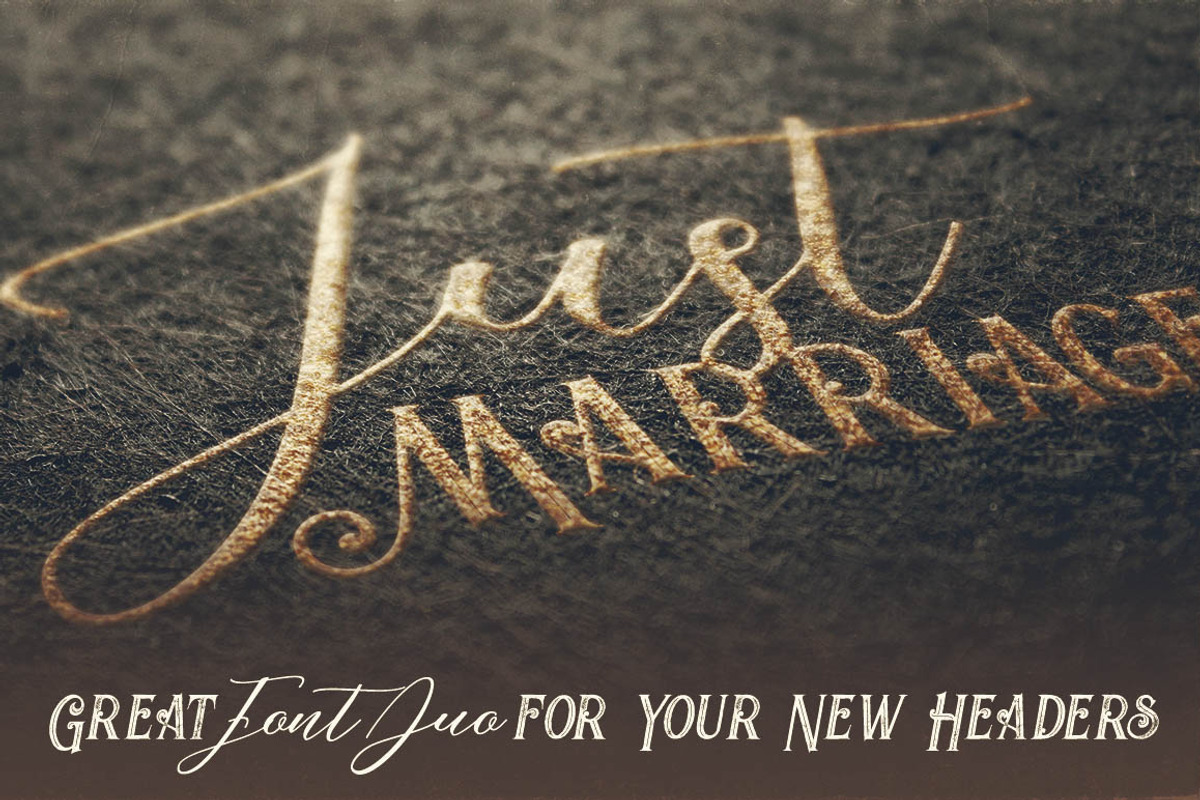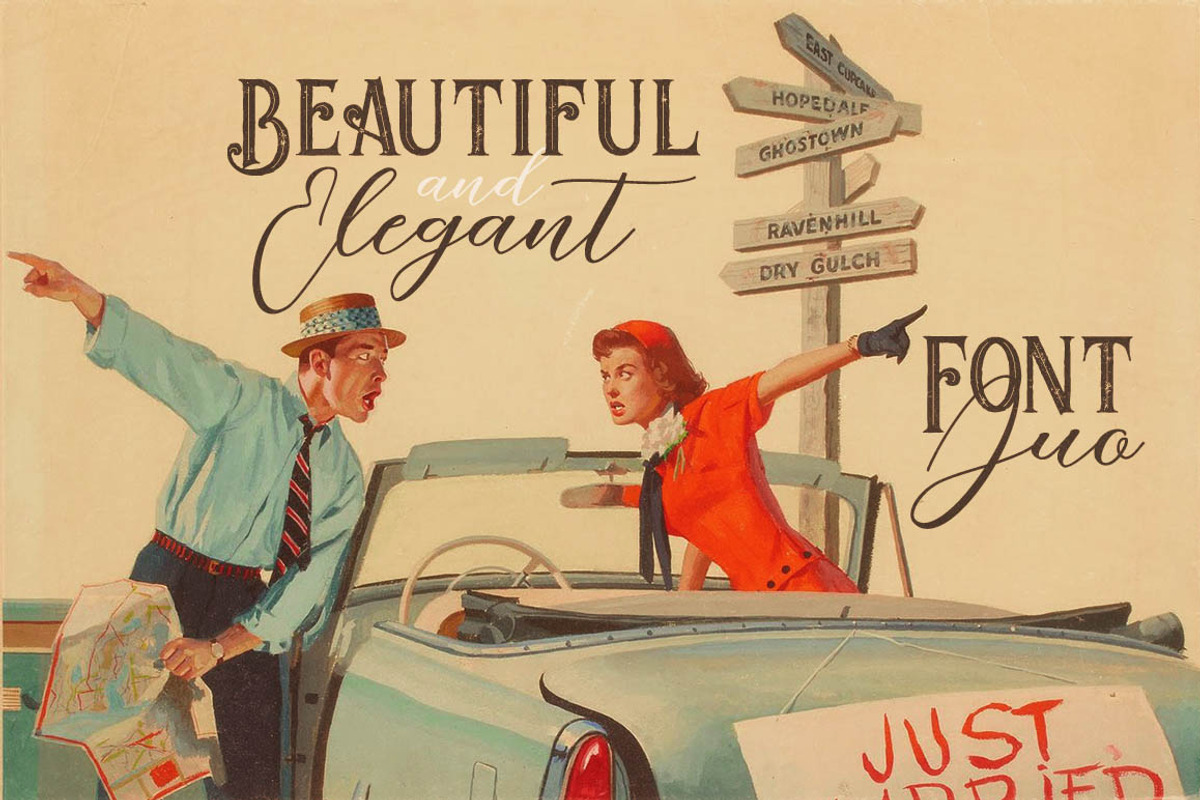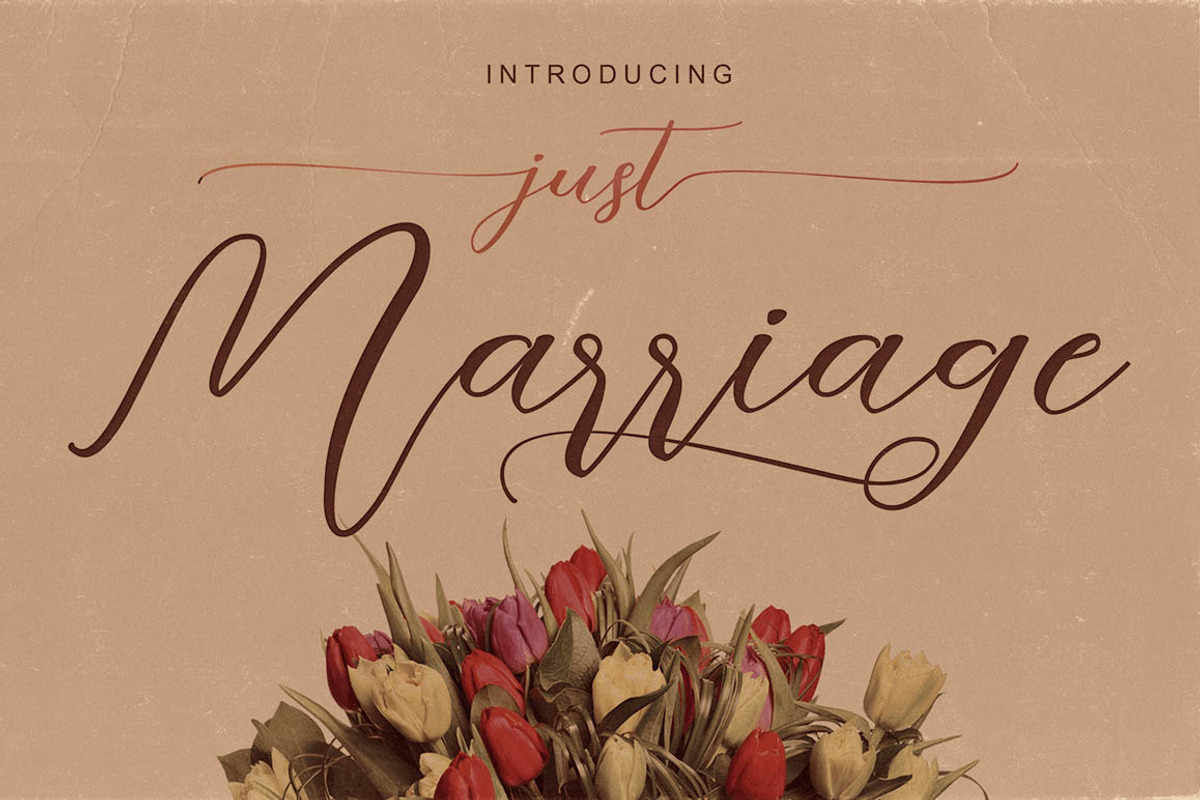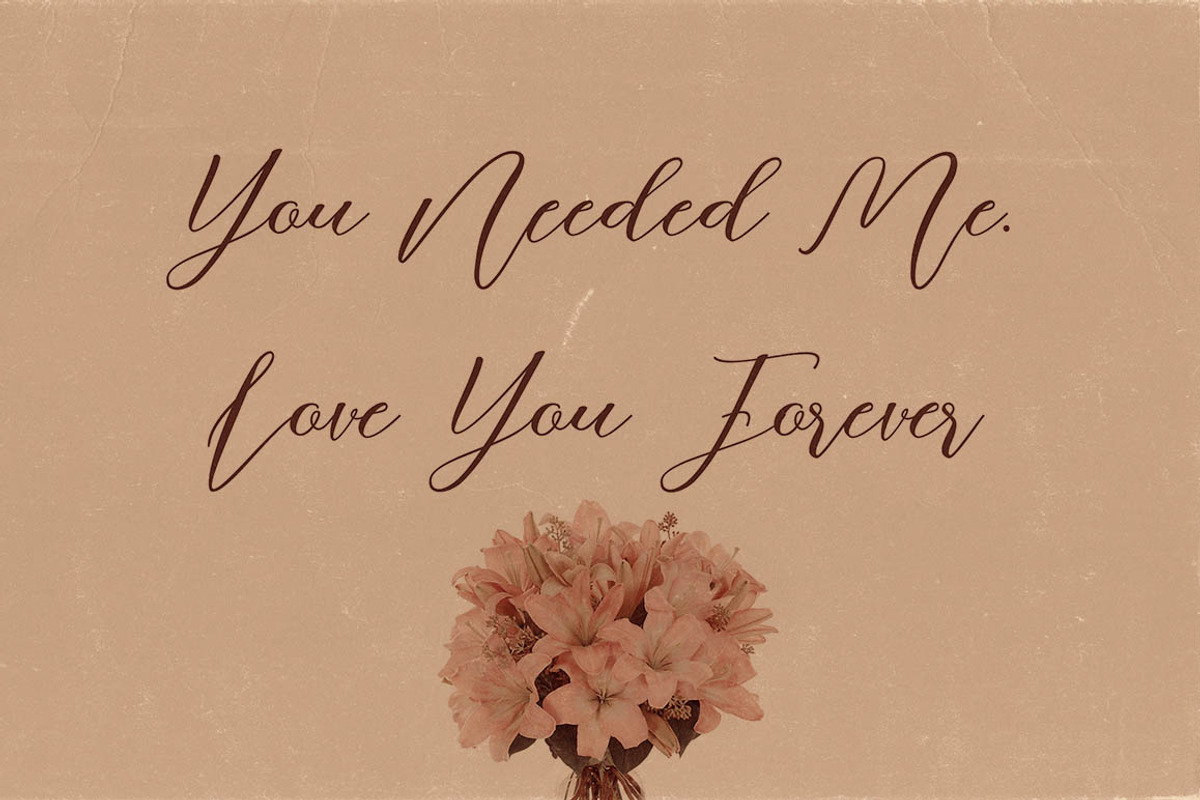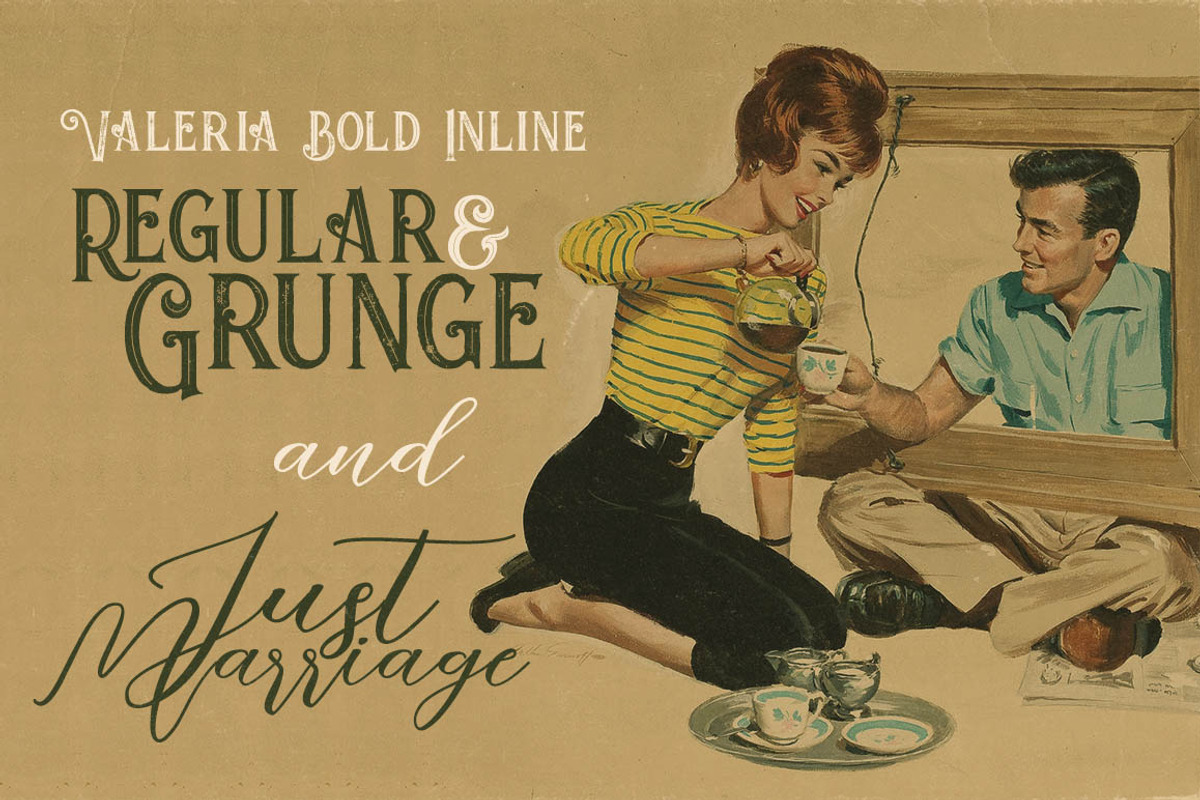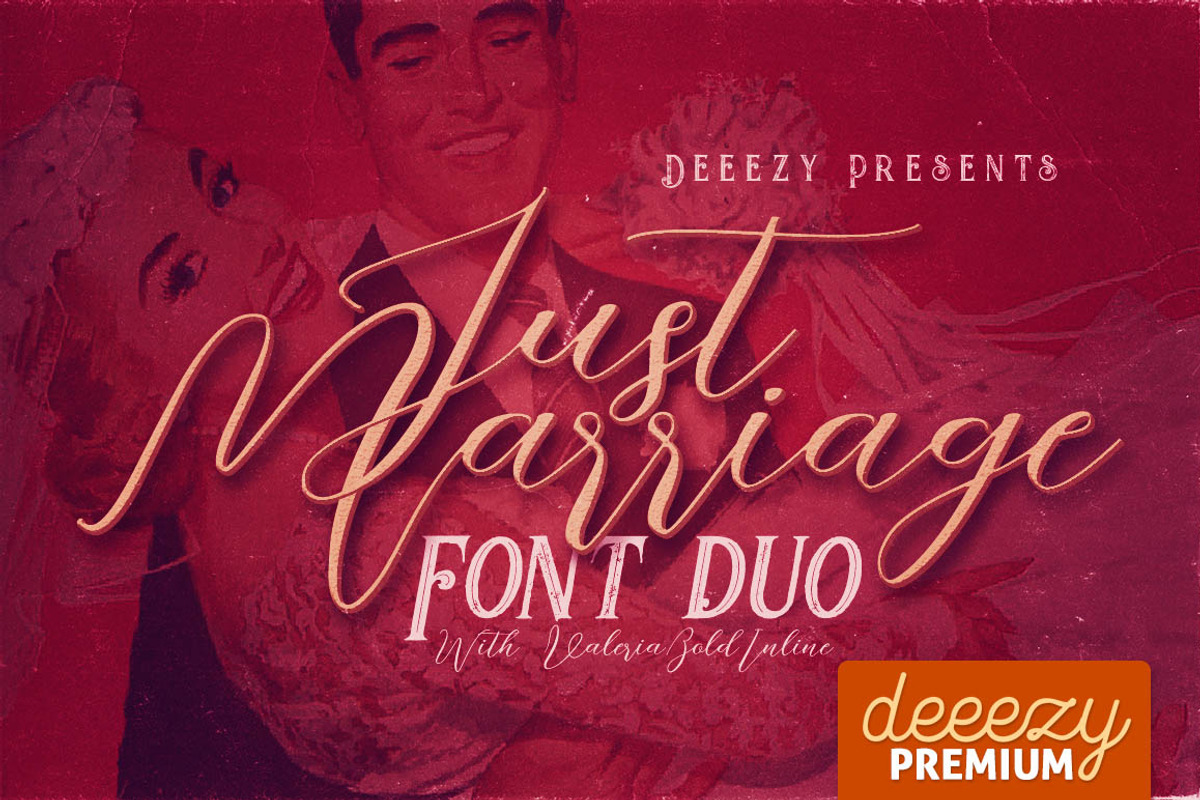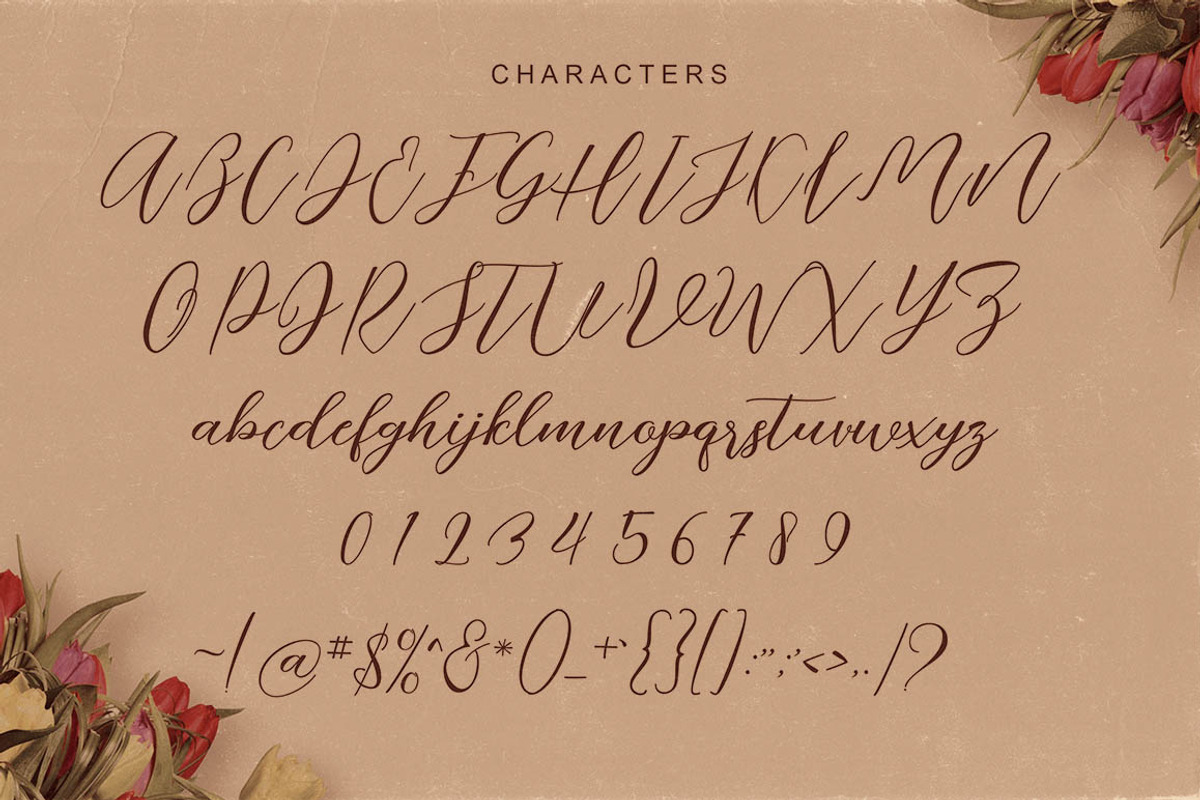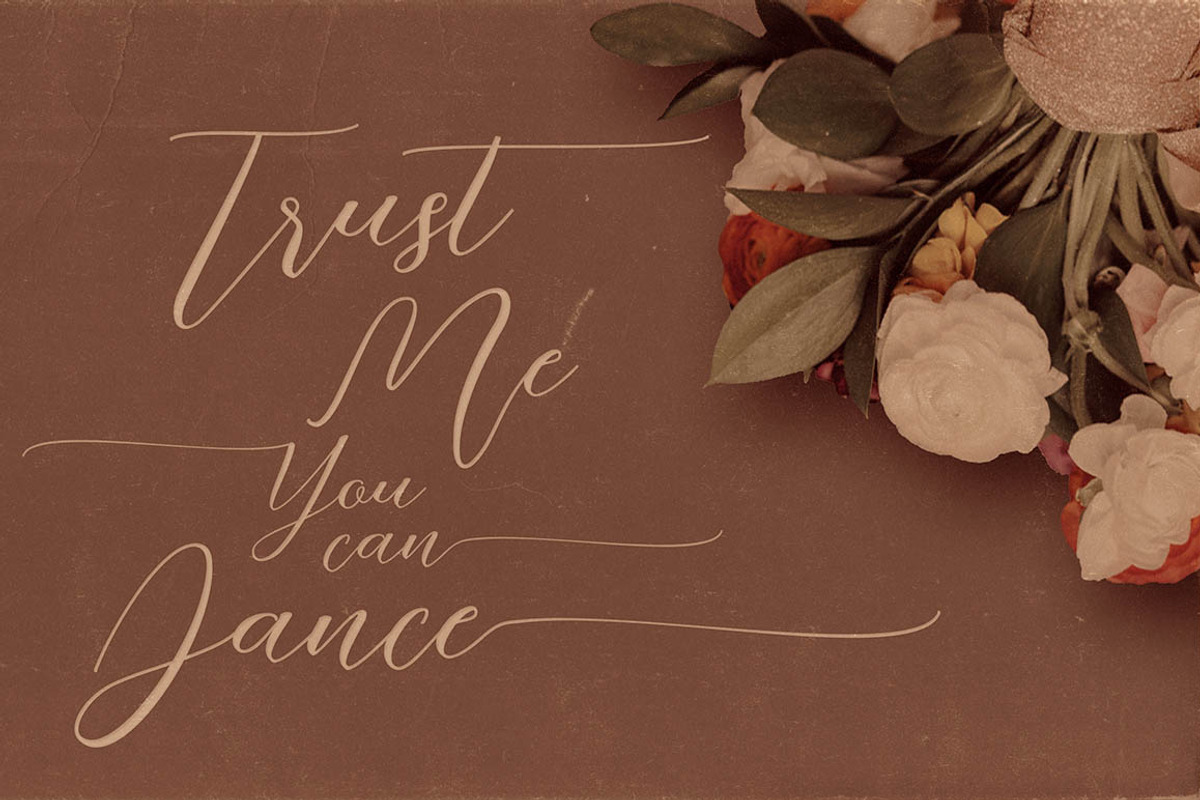
Just Marriage Font Duo
Just Marriage Font Duo by Deeezy is a font selected for branding, posters, packaging, typography.
- First font is elegant script font with multi language support and lot of stylistic alternates.
Why Just Marriage Font Duo is worth a look
Just Marriage Font Duo by Deeezy fits naturally into Branding, posters, packaging, typography.